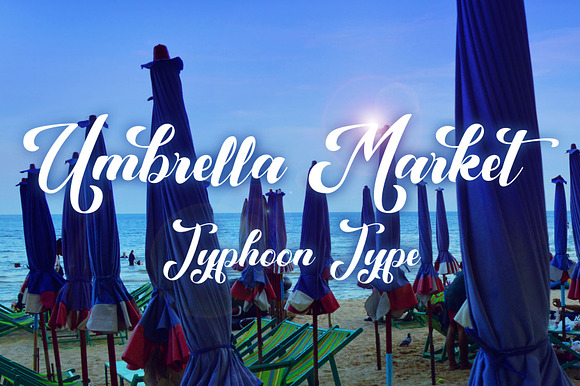
Umbrella Market font
Umbrella Market This font perfect for logos, name tag, advertising, product packaging, clothing, social media & greeting cards.
Umbrella Market font by TyphoonStudio fits naturally into Branding, posters, packaging, typography.